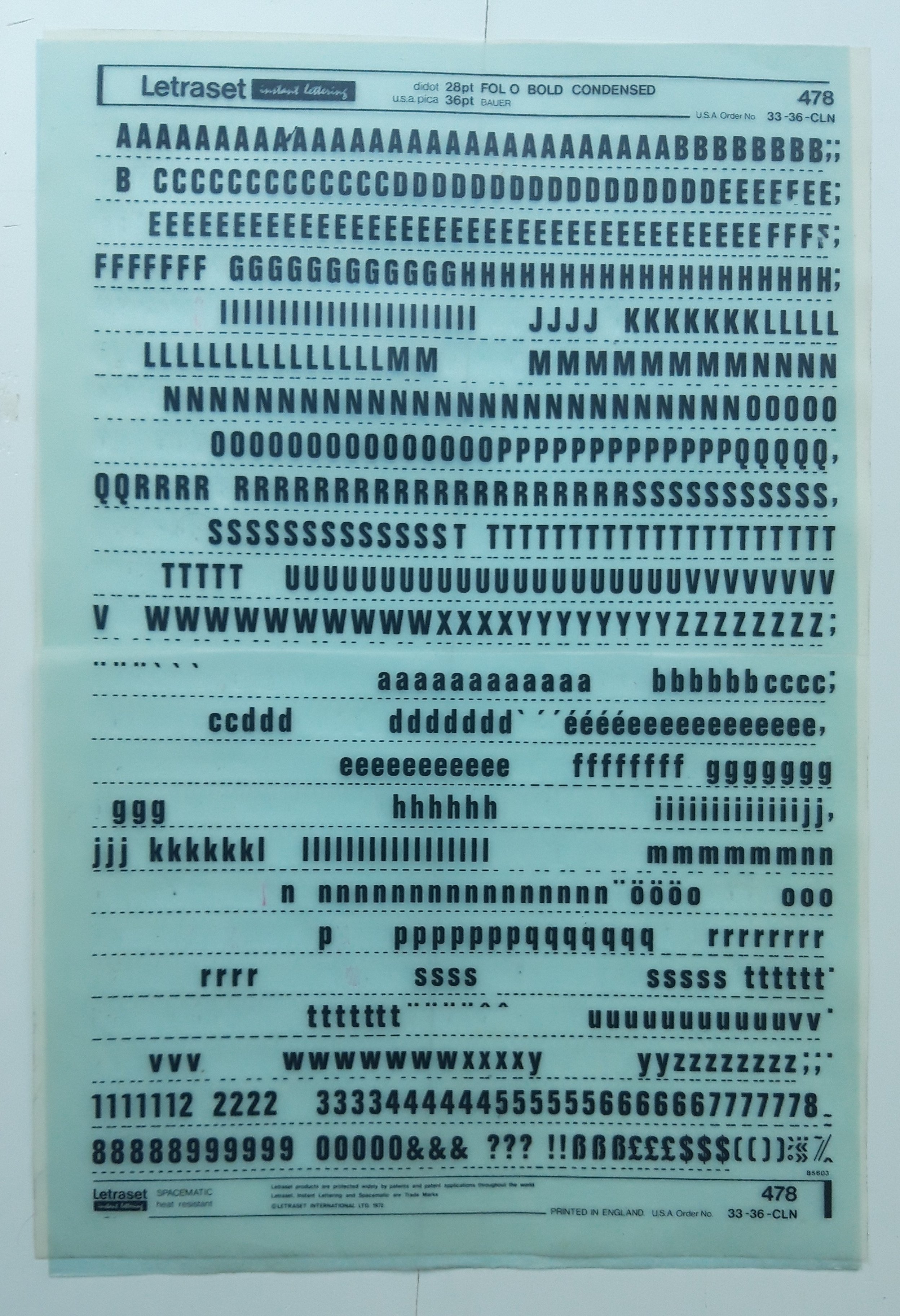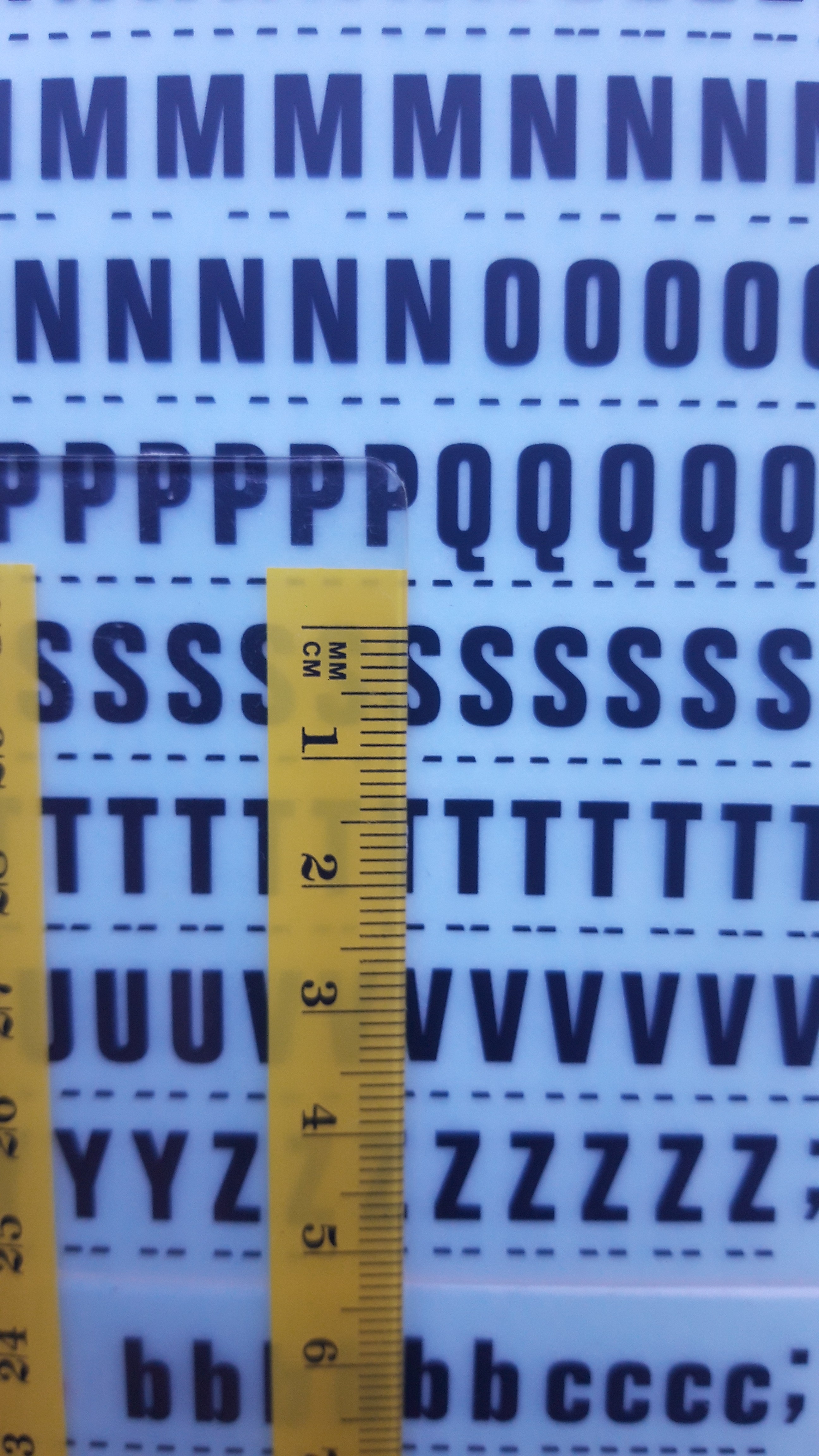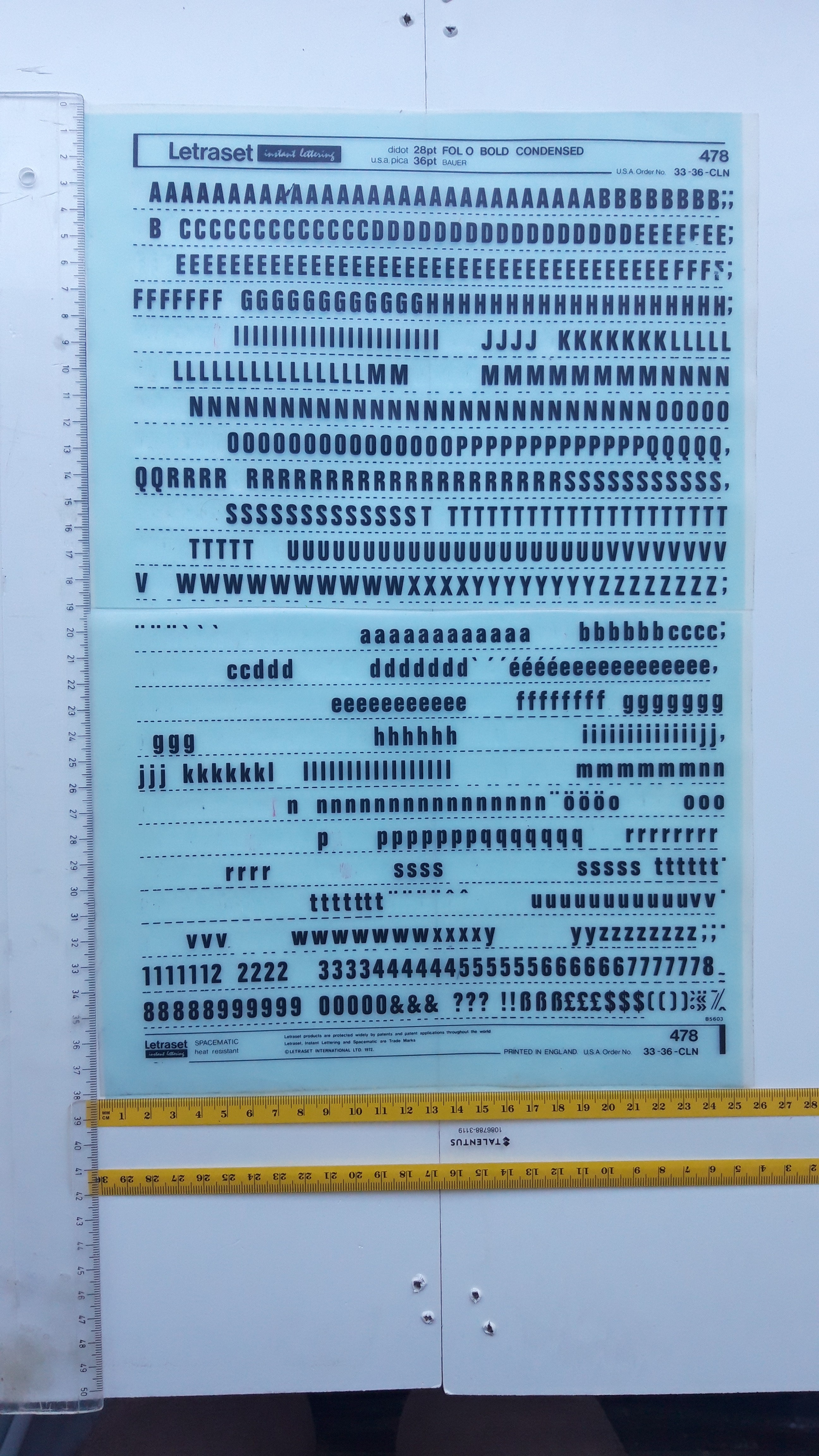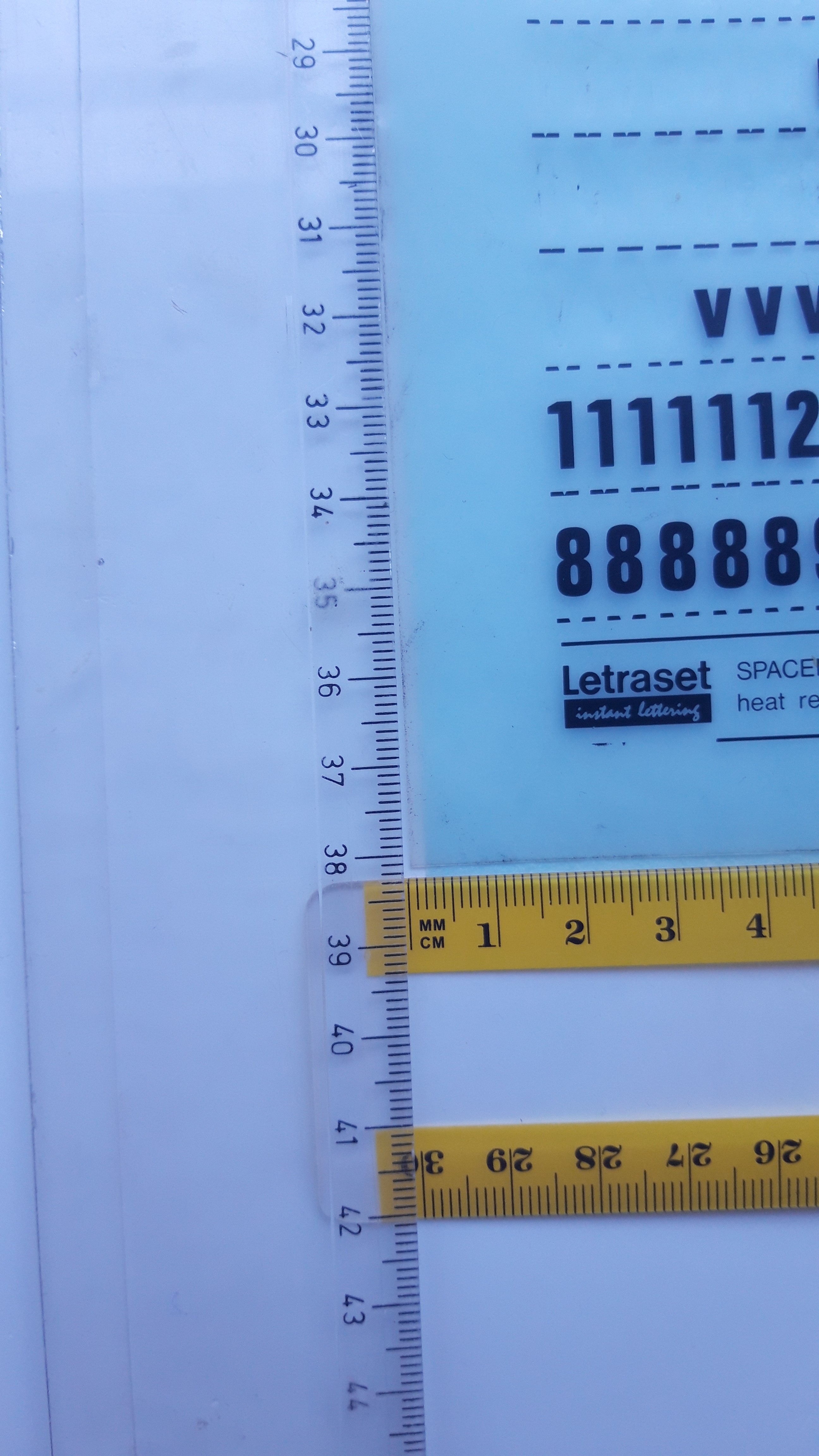
Letraset Dry Transfer Font - Folio Bold Condensed.
And here is Folio Medium at 7.6mm for pack although we were never able to positively ID all the characters.
Keep in mind the TTF's that are currently available vary slightly from the original dry transfers from Letraset.
Here is what we had come up with for the PP1 pack based on the 7.6mm Letraset letters... I can't remember if this was ever finalized or not, but for whatever it is worth, here it is.
And I am almost embarrassed to post these up because we never came close to finishing them, but here is as far as we got with the MoM pack based off Folio Medium.
I'm a bit confused! I know that the correct font size is 28, altough all the converters on the internet shows different values:
The height of the font is 7mm or font size 19.92 in US and UK or 18.62 in Europe (or 26.45 pixel or 0.2756 inch).
I did a test print and the font size 20 was wrong, so a gradualy increased the font size until I got the font size 28, which for me gived exactly 7.0mm and not 7.6mm.
The other thing that I don't understand from Art's post(s) is if this font was a known Letraset font or not, because all my searches were with no result(s).
The thread title was changed and the beginning of the first post was updated with new informations:
It seems that this Letraset font was already known by some members to be the one used on the Pre-Pro #3 and the ESB Hero helmets, but was never posted on the forums. I did a search on the forums for this font and all the results were negative.
I will resume this thread from a found font to a simple font presentation.
Keep in mind, as I mentioned earlier that the TTF font is not exact to the dry transfers.
Here is where we are coming up with 28pt being 7.6mm. This is a scan from my 1976 Letraset Catalog which shows samples of all of their dry transfer fonts.
Unfortunately, I thought the Letraset thing was well known and published. Tylerdurden (Dan) is the one who positively IDed the fonts about 8 years ago. I know their was debate about the size, but I didn't realize people weren't aware of what fonts were used. This is why we should be populating the wiki! Actually... if you look in the wiki, we do have an entry for Letraset Dry transfers, but we never filled it out. :(
You are right on the difference between the Letraset and TTF font and the difference is under 1mm (more exactly 0.6mm) which is a huge deal in a small scale.
The use of the Letraset lettering was a public knowledge, but not the specific font used. The fact that this particular font was never posted(?) on the forums made me to search for it. But now this is all public and the hunt begin for the accurate Letraset sheet.